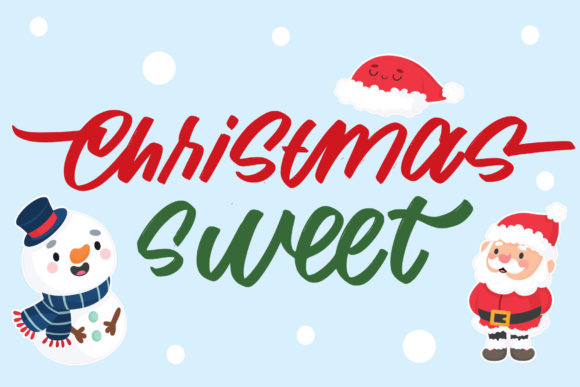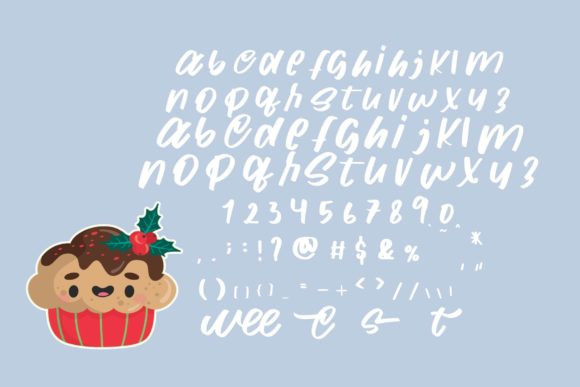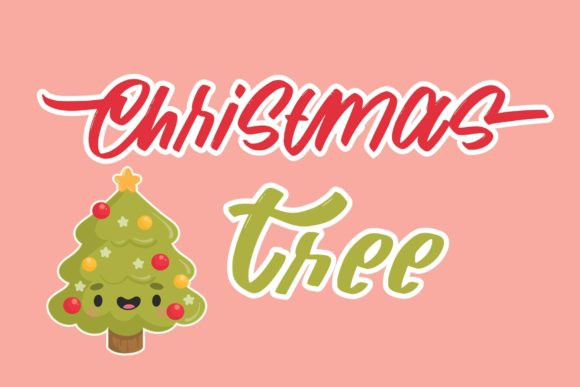
Christmas Sweet Font
Christmas Sweet is a joyful display font, with a cute style and great readability. It’s perfect for Christmas cards, branding, stationery, blog design, custom art, custom stamps, custom embossers, book, apparel, packaging, headline, and much more! It will add a unique feel and looks stunning to any design project!